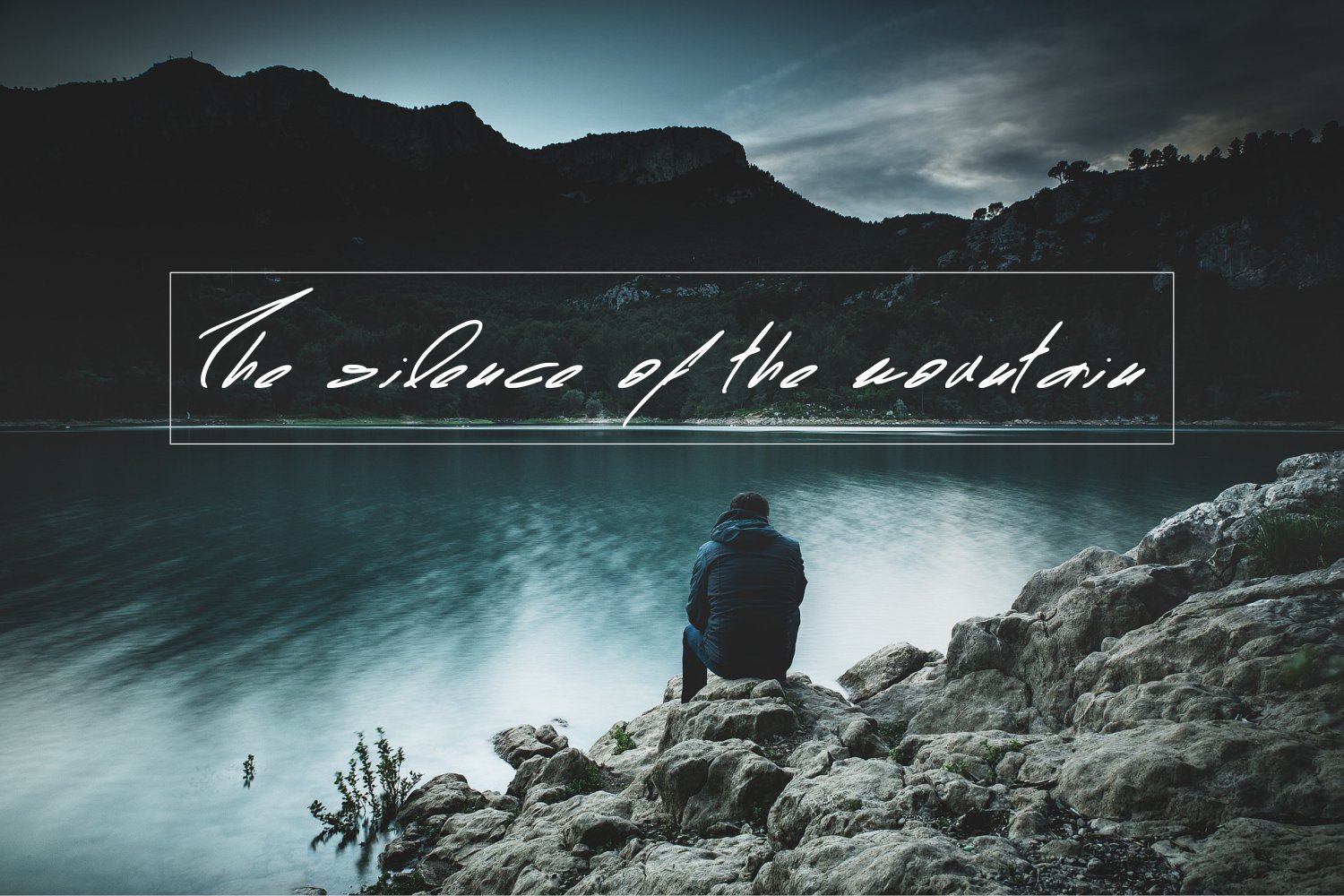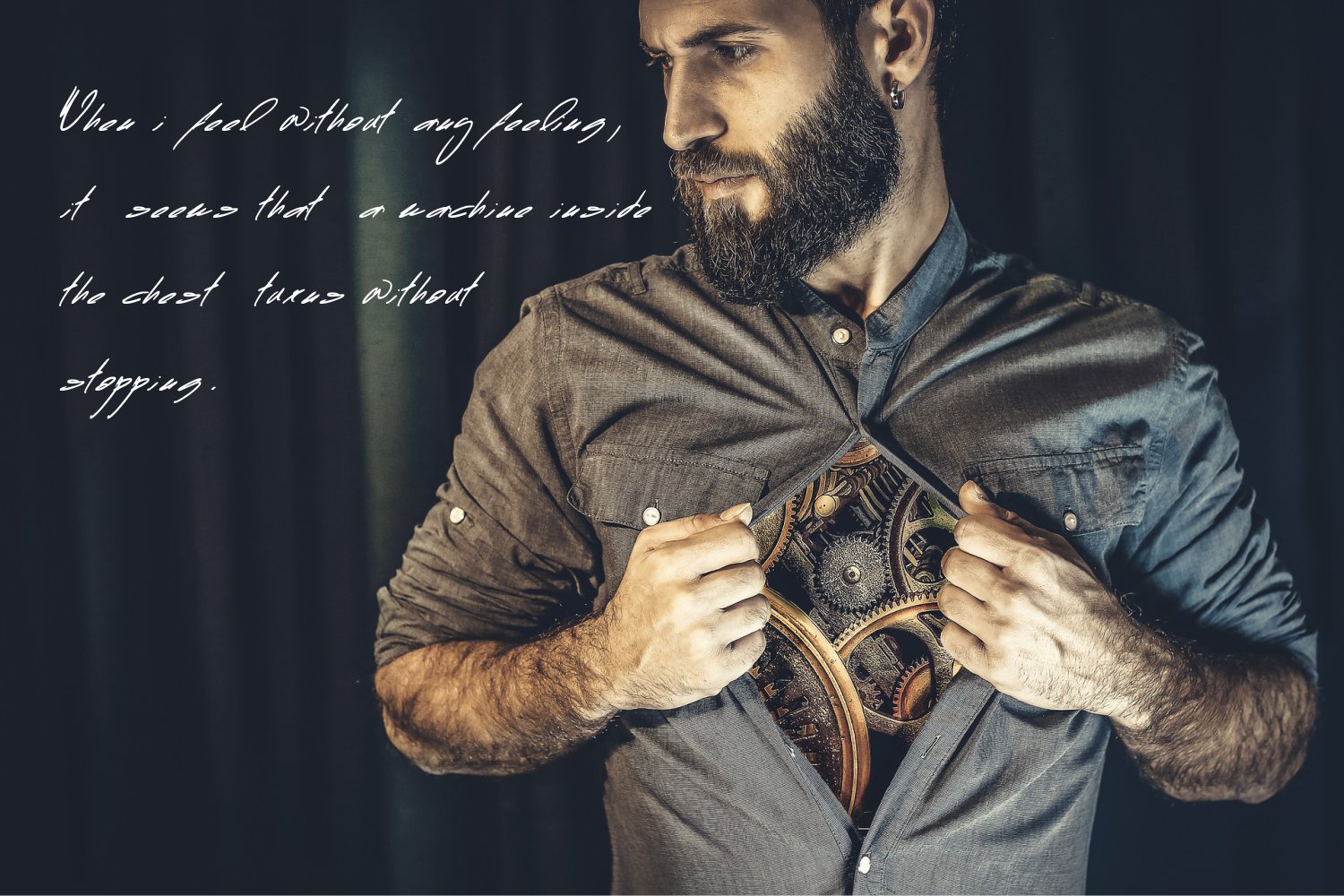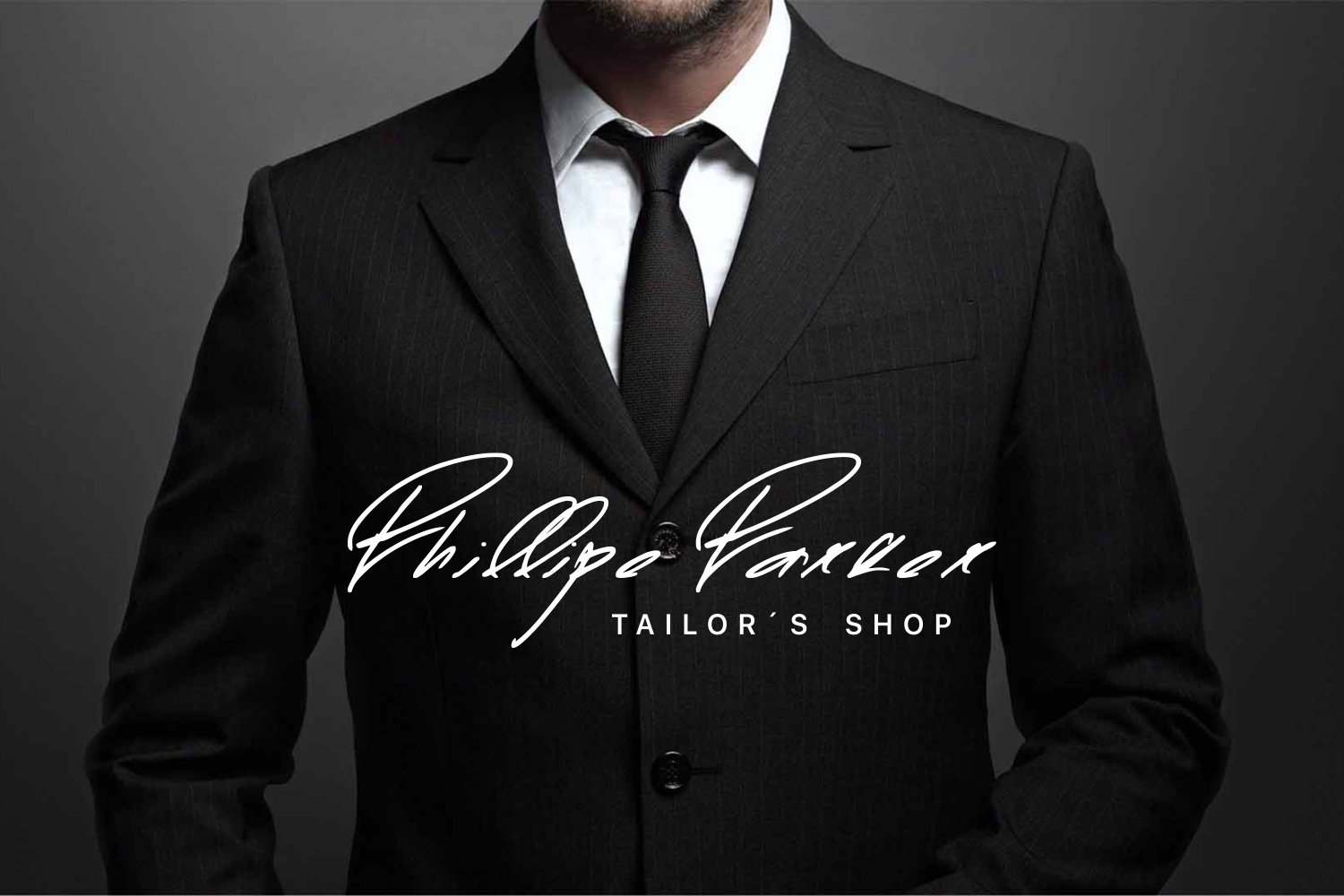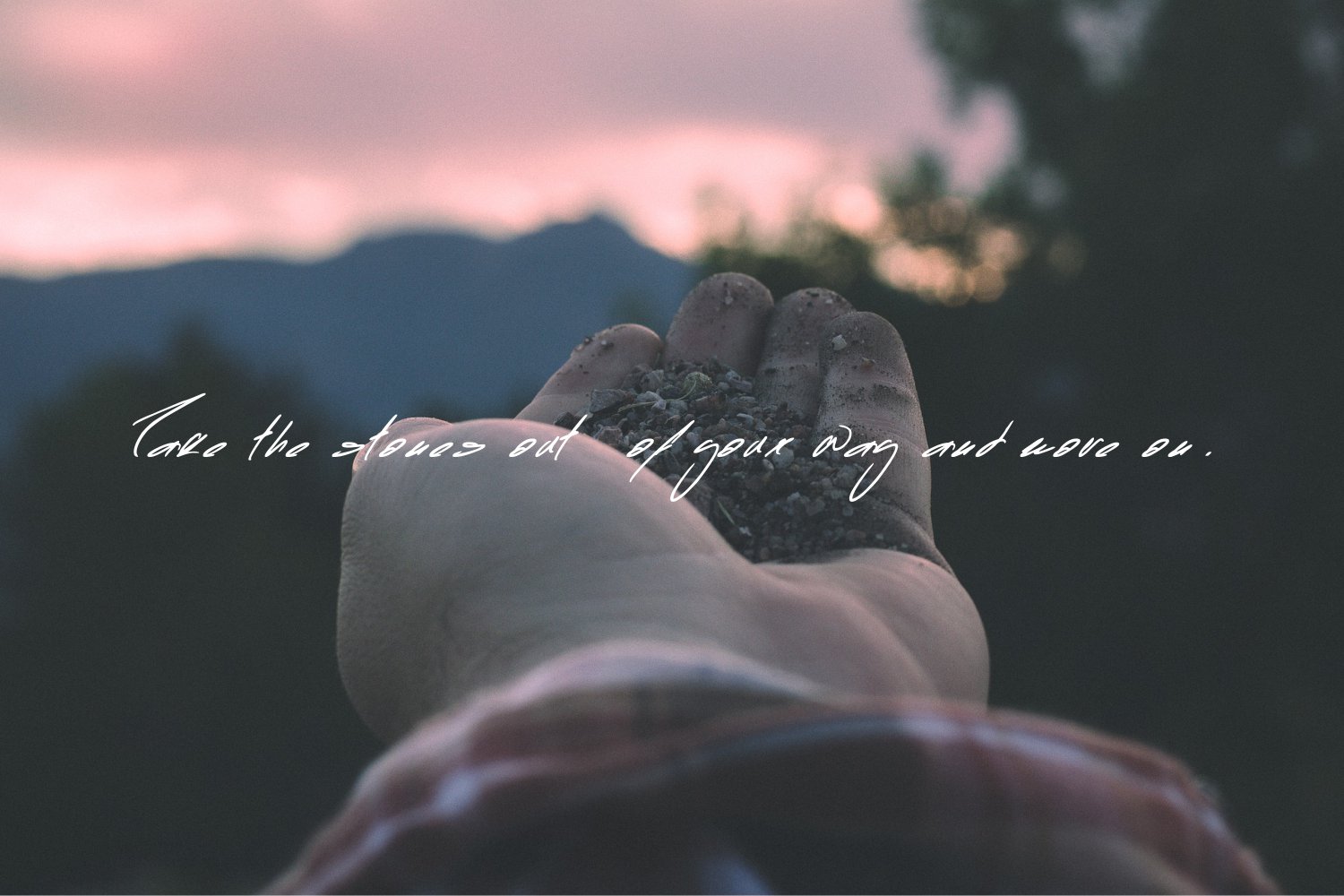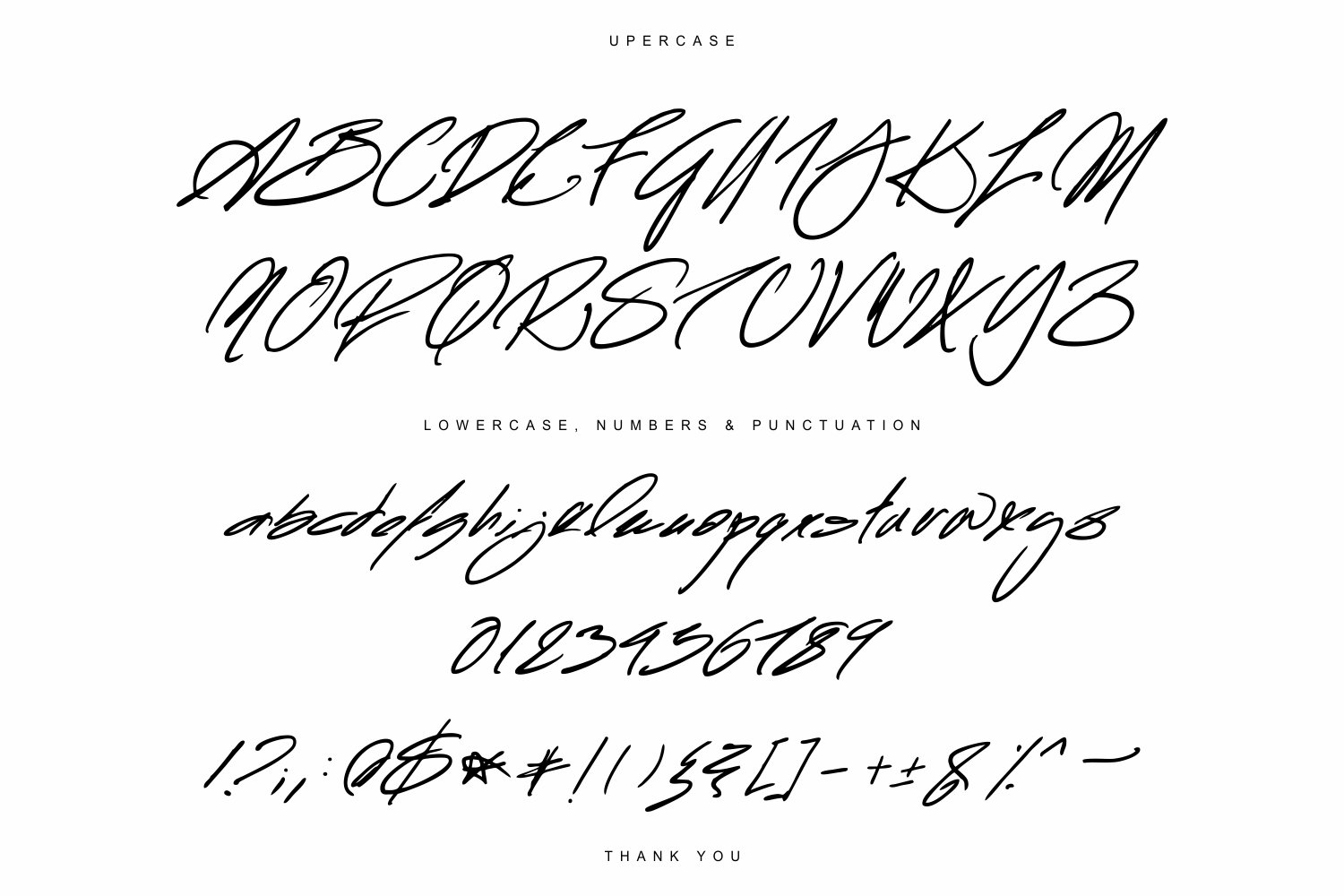
Introducing Blanc Font: Elevate Your Designs with a Personal Touch
In the world of typography, fonts play a crucial role in conveying the tone and personality of a brand or design. For designers and crafters looking to add a unique and personal touch to their work, the Blanc Font family offers an exciting solution. At the heart of this collection is the Blanc Signature – a hand-drawn script font that works great for logo signatures. In this article, we’ll explore the characteristics, uses, and benefits of the Blanc Font, with a special focus on the elegant Blanc Signature.
What is Blanc Font?
The Blanc Font is a versatile typeface designed to bring a touch of elegance and sophistication to various design projects. It is part of a growing collection of fonts that cater to the needs of designers, crafters, and anyone looking for unique typographic solutions. The Blanc Font family is characterized by its clean lines, elegant curves, and a distinctive charm that sets it apart from more traditional typefaces.
Blanc Signature – A Hand-Drawn Script Font
Within the Blanc Font family, the Blanc Signature stands out as a beautifully hand-drawn script font. This font is specifically designed to mimic the fluidity and personality of handwritten signatures, making it an excellent choice for logo designs, branding, and any project that requires a personal and elegant touch. The Blanc Signature boasts:
- Unique Character: Each letter is carefully crafted to ensure that the font has a unique and distinctive look, perfect for standing out in any design.
- Elegant Flow: The script font features a smooth, flowing design that connects letters in a natural and aesthetically pleasing way.
- Versatility: Despite its elegant appearance, the Blanc Signature is versatile enough to be used in a variety of contexts, from formal to casual designs.
- Easy to Read: While it has a script design, the Blanc Signature remains highly legible, making it suitable for use in both headings and body text.
Uses of Blanc Signature
The Blanc Signature is incredibly versatile and can be used in a multitude of design projects, including:
- Logo Design: Its hand-drawn, signature-like quality makes it perfect for logos, especially those that require a personal or professional touch.
- Branding: Use the Blanc Signature to add a touch of elegance and sophistication to your brand’s typography.
- Stationery: Enhance your letterheads, invitations, and thank you cards with a font that exudes class and style.
- Digital Media: Whether it’s for social media graphics, website headers, or email newsletters, the Blanc Signature can add a distinctive flair to your digital content.
Benefits of Using Blanc Font
Choosing the Blanc Font, particularly the Blanc Signature, offers several advantages:
- Uniqueness: Stand out from the crowd with a font that offers a fresh and distinctive look.
- Ease of Use: The Blanc Signature is designed to be user-friendly, making it easy to incorporate into your designs.
- Professionalism: Despite its unique and hand-drawn appearance, the font maintains a level of professionalism suitable for a wide range of applications.
The Blanc Signature, as part of the Blanc Font family, offers designers and crafters a beautiful, hand-drawn script font that brings a personal and elegant touch to any design project. Its unique character, elegant flow, and versatility make it an excellent choice for logos, branding, stationery, and digital media. By incorporating the Blanc Signature into your typography, you can elevate your designs, convey a sense of sophistication, and ensure your work stands out in a crowded creative landscape.
Whether you’re a professional designer or a DIY crafter, the Blanc Signature is a valuable addition to your typographic toolkit. Explore the possibilities of what you can create with this stunning hand-drawn script font and take your designs to the next level.